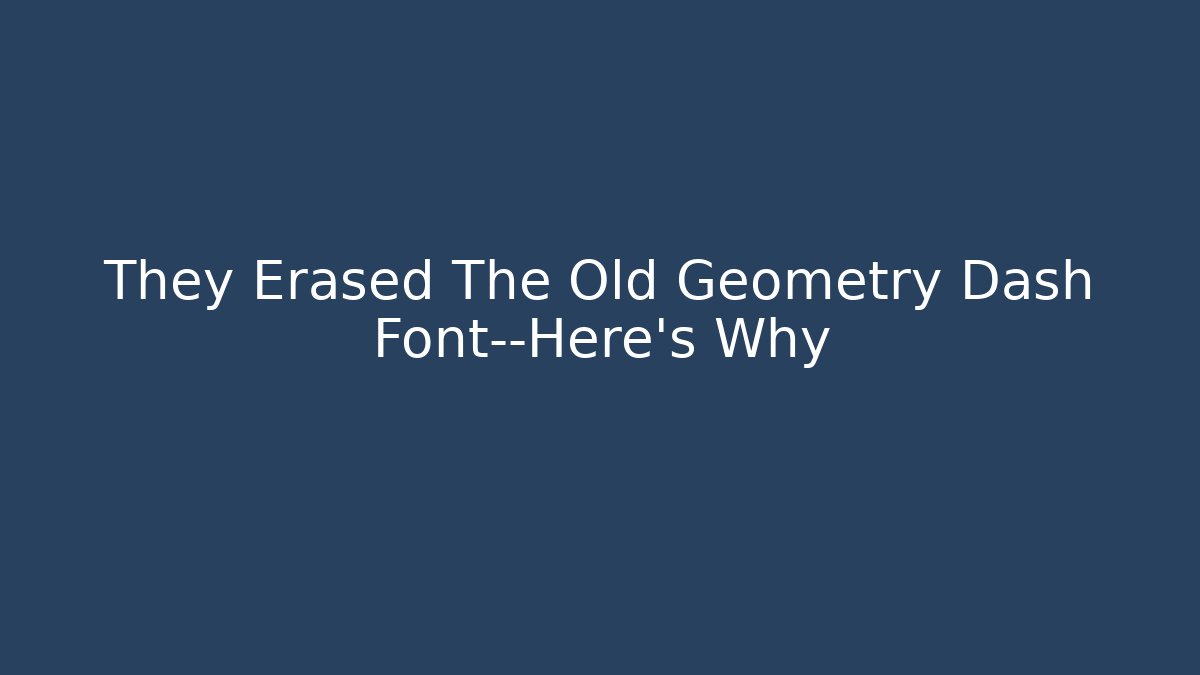
They Erased The Old Geometry Dash Font—Here's Why
This change dropped during a fresh game update, sparking hot discussion across the community. Players noticed instantly and started comparing old and new text styles online.
They Erased The Old Geometry Dash Font—Here's Why is a redesign. It swaps the classic blocky look for a cleaner, modern style that fits current UI trends. Studies indicate smoother fonts reduce visual clutter on small screens.
How the update affects players
Research shows simpler text improves readability in intense gameplay moments. The new glyphs align better with current UI elements and leaderboard spacing. Many feel this shift makes menus feel less cluttered overall.
Impact on speedruns and recognition
Some players report slight adjustment time when reading dense text at high speeds. Clear letters help prevent misreads during frame perfect sections. Others prefer the classic style for nostalgic recognition.
A short takeaway: the update balances style with function for modern devices.
Why make this change now?
Developers aimed for a consistent visual language across menus and levels. This update keeps the game feeling fresh while staying accessible.
Will the classic font ever return?
Temporary options may appear for visual settings, based on similar past updates. Community feedback often influences these choices over time.